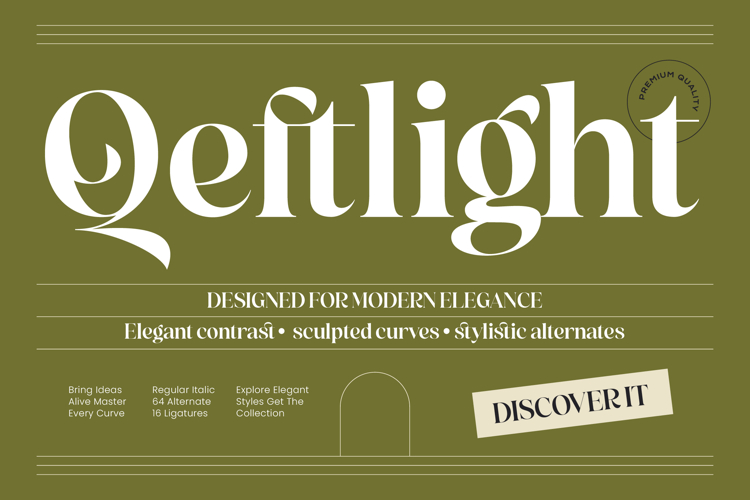
Qeftlight - Elegant Contrast Serif
Redefine the standards of sophisticated typography with Qeftlight - Elegant Contrast Serif, a typeface that embodies modern elegance and artistic refinement. This high-contrast serif is meticulously crafted to balance sculpted curves with sharp, precise edges, creating a sophisticated aesthetic that commands attention. Whether used for headlines or display purposes, its silhouette offers a distinctive visual rhythm that bridges the gap between classic heritage and contemporary minimalism.
Elevate your creative toolkit with a font family designed for professional versatility and typographic precision. Featuring a robust selection of stylistic alternates and unique ligatures, this typeface allows designers to customize letterforms for a truly bespoke look. With its extensive multilingual support, Qeftlight - Elegant Contrast Serif adapts seamlessly across global markets, making it incredibly versatile for international projects and diverse creative campaigns.